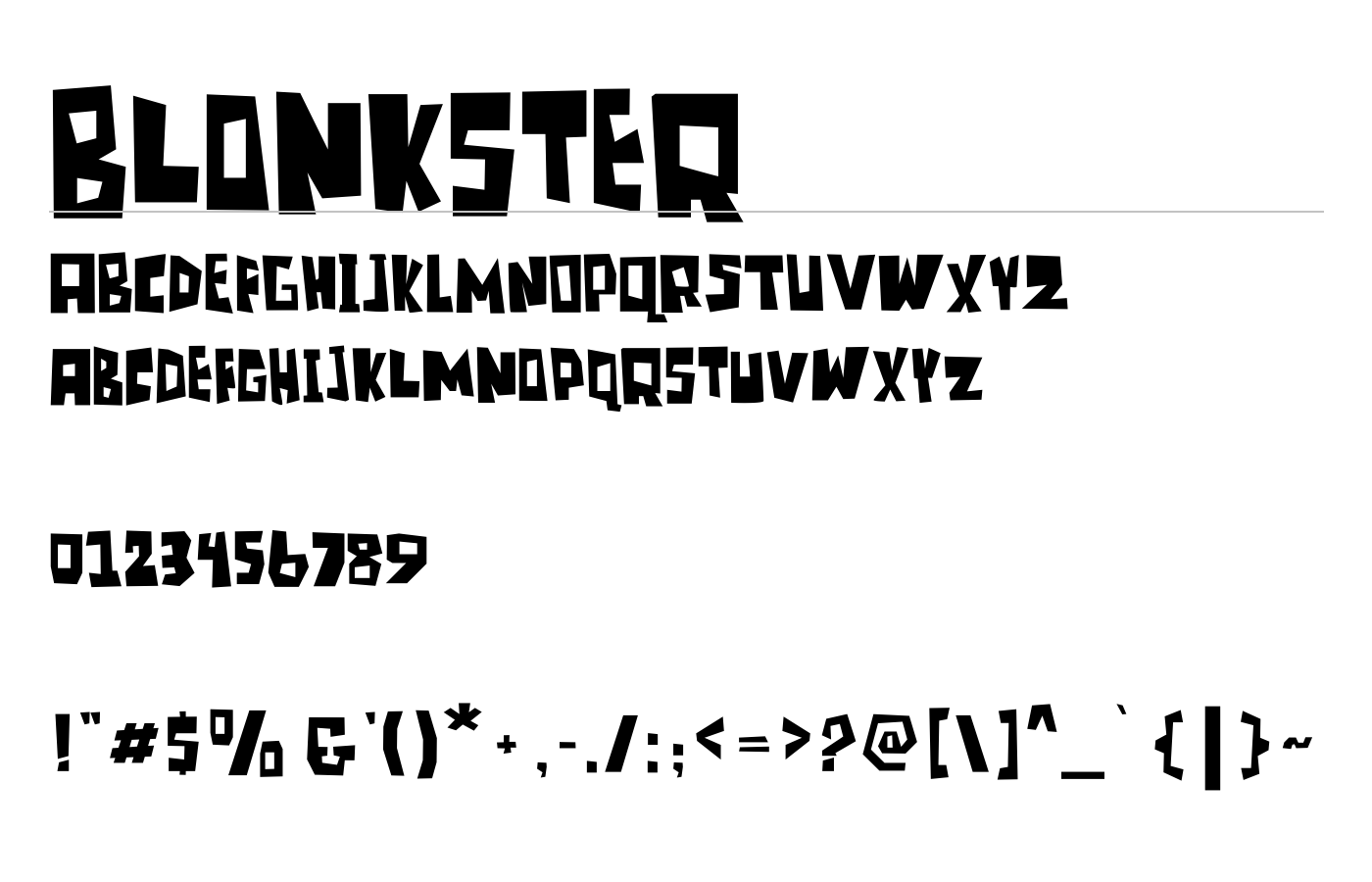
Blonkster is a bold, playful sans serif font with irregular, chunky letterforms that give it a fun, hand-cut paper feel. Its heavy weight and uneven shapes make it stand out in headlines, logos, and creative designs that want to convey energy and uniqueness. This font works particularly well for branding, posters, or any project aiming for a quirky, informal vibe.
Blonkster Font
About Blonkster Font
| Font family | Blonkster Font |
| Designer | Kurnia setyadi |